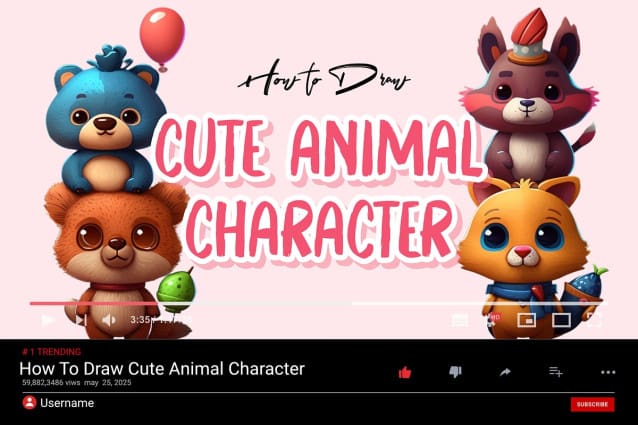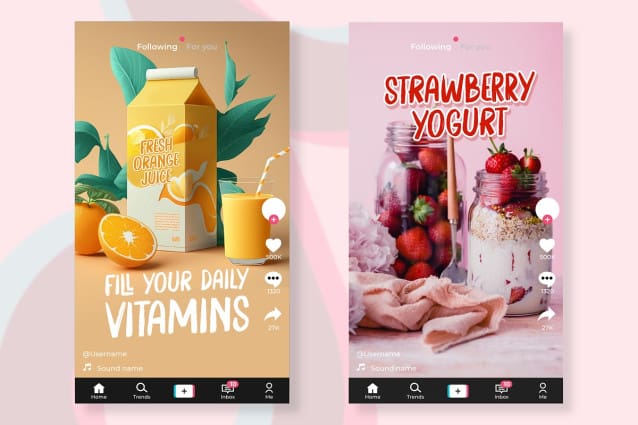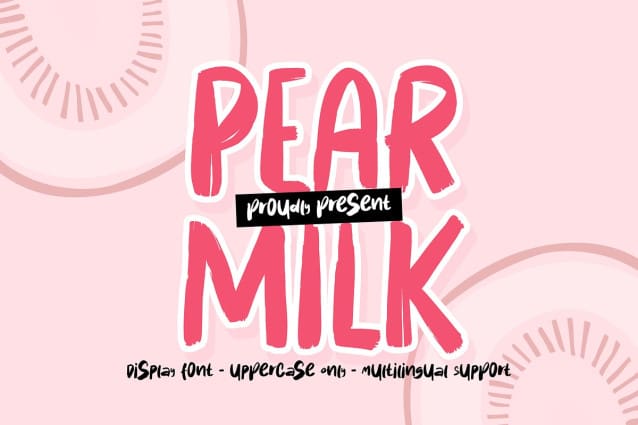
Pear Milk Font
Pear Milk Font is a unique font that’s perfect for all your craft projects! This font is perfect for home designs, Ads Designs, Youtube covers, Tiktok, svg designs, home decor, branding, blogs, logos, quotes, and more!